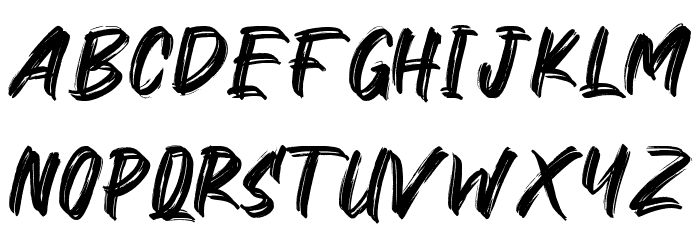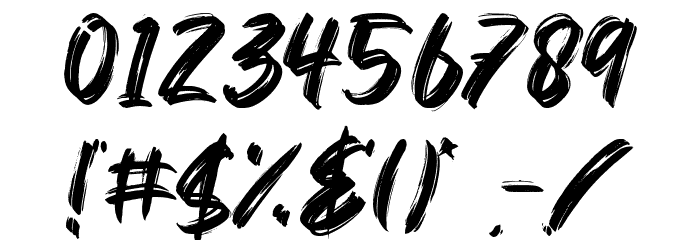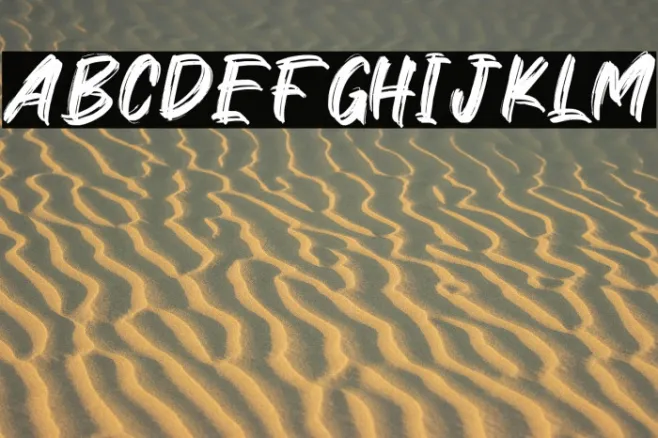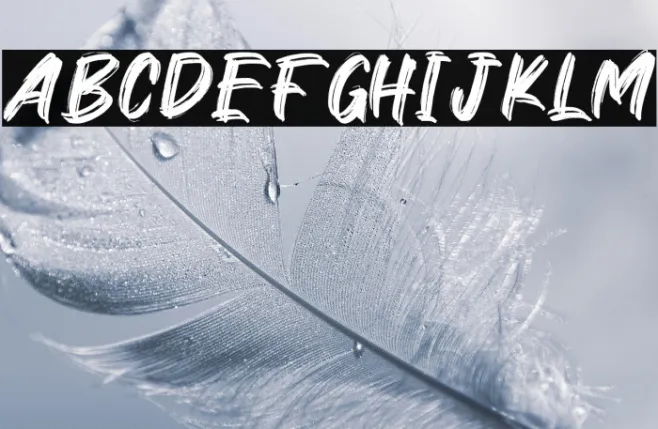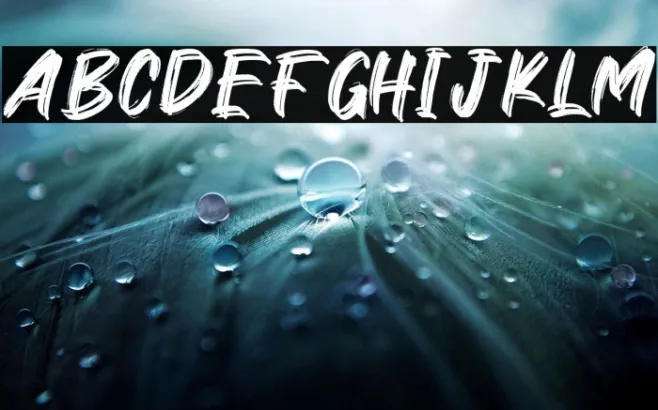
Ronald Charis Font
This font features a bold and expressive brush script style, characterized by its dynamic and energetic strokes. The letters exhibit a hand-painted appearance, with varying thickness that adds a sense of movement and fluidity. The uppercase and lowercase letters maintain a consistent style, with a slightly slanted orientation that enhances its casual and artistic feel. The numbers and special characters are equally bold, ensuring a cohesive look across all elements. This font's unique style makes it stand out, perfect for projects that require a personal and creative touch.
A bold, expressive brush script font with dynamic strokes and a hand-painted look.
- Font: Ronald Charis
- Proposed Projects: Ideal for branding, posters, invitations, and any design that requires a personal, artistic touch.
- Category: Script